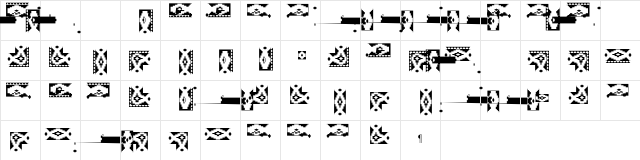
Borders Santa Fe
Design Context for Borders Typeface
Borders is a composed and adaptable typeface that performs quietly and consistently across a wide range of design contexts.